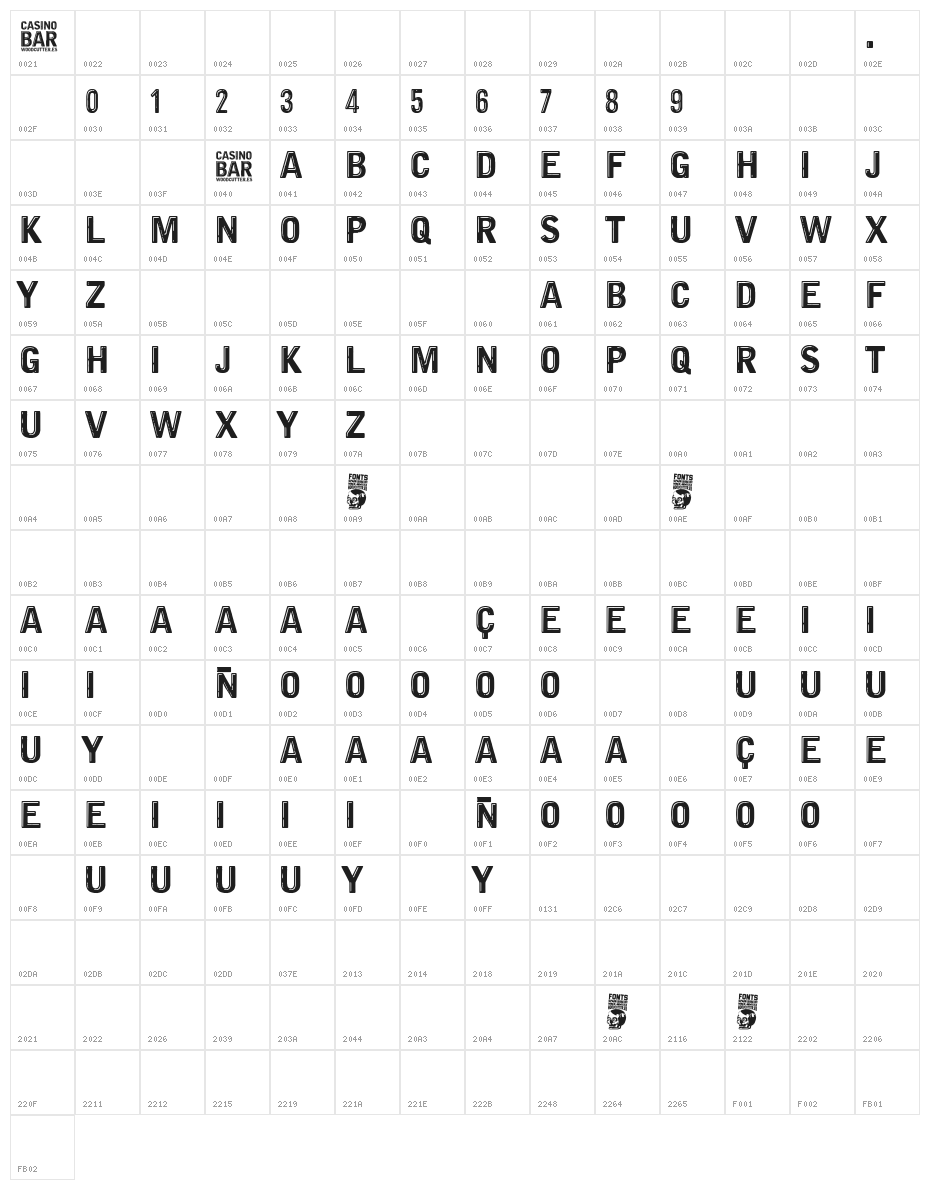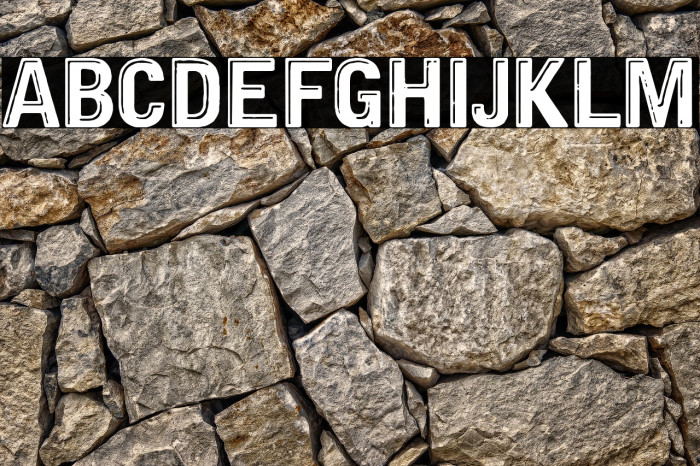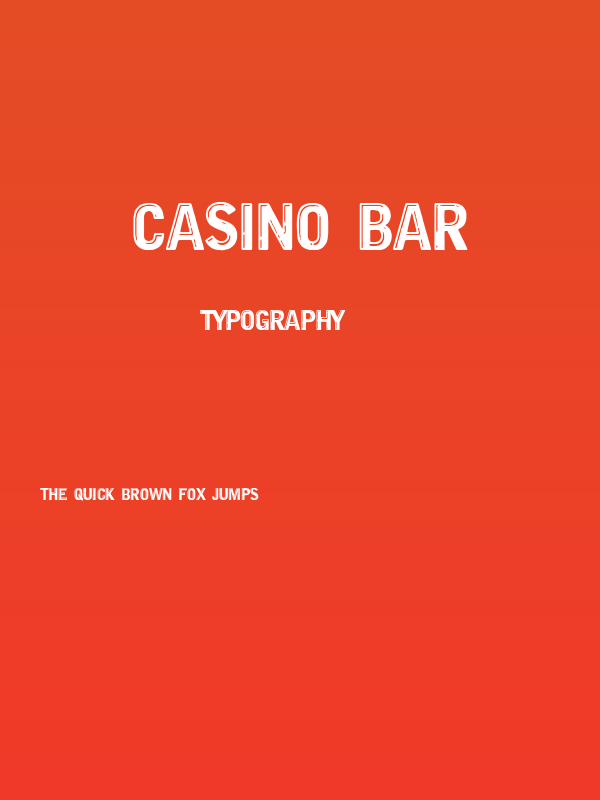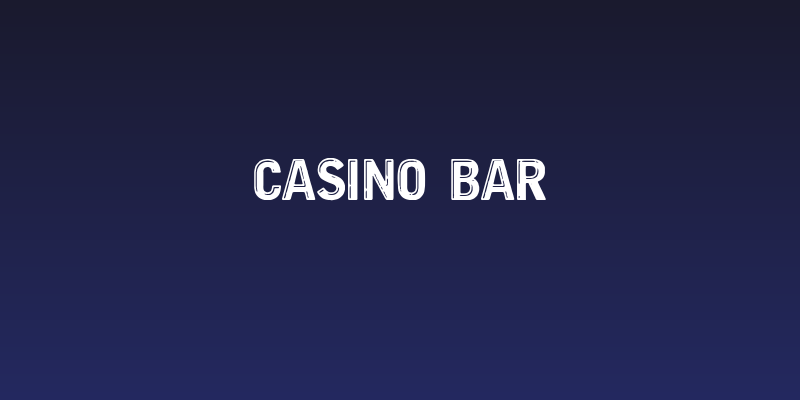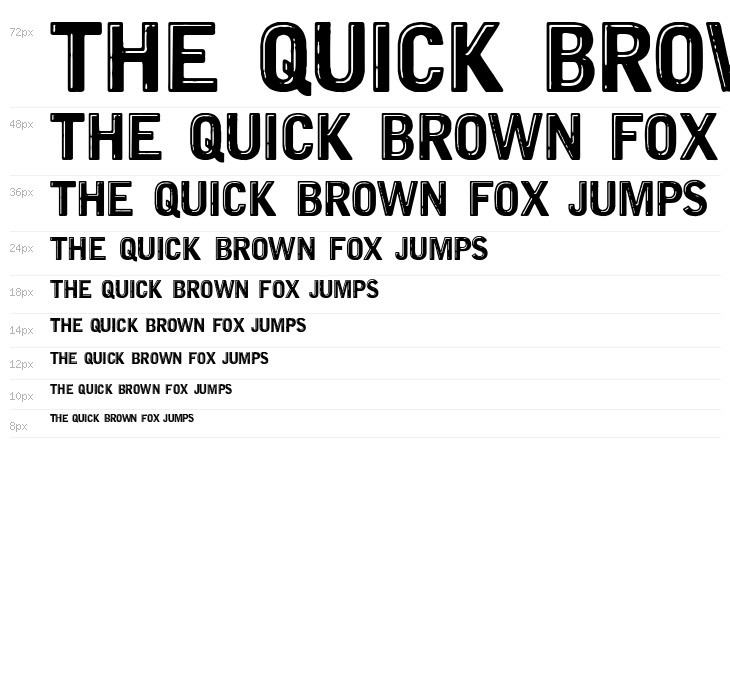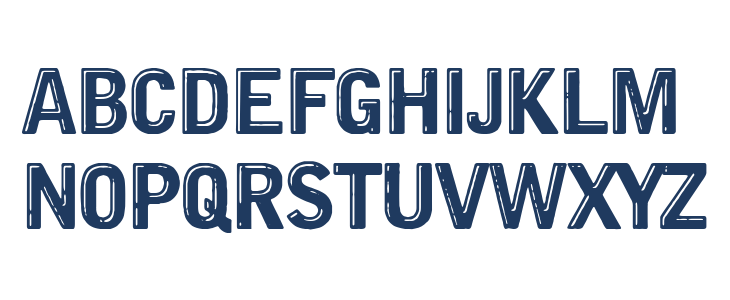
Casino Bar Font
Casino Bar Description
This font features bold, uppercase letters with a distinct, vintage style. The characters are outlined with a thick black border, giving them a strong, impactful presence. The interior of each letter is filled with a textured pattern that adds depth and a slightly distressed look, reminiscent of classic signage or retro advertisements. The numbers follow the same design principles, ensuring consistency across all characters. This font's unique style makes it ideal for projects that require a bold and nostalgic aesthetic.
| Use Case | Headlines, Logos, Signage |
| Proposed Projects | Ideal for retro-themed posters, vintage advertisements, bar or casino signage, and branding projects that require a nostalgic touch. |